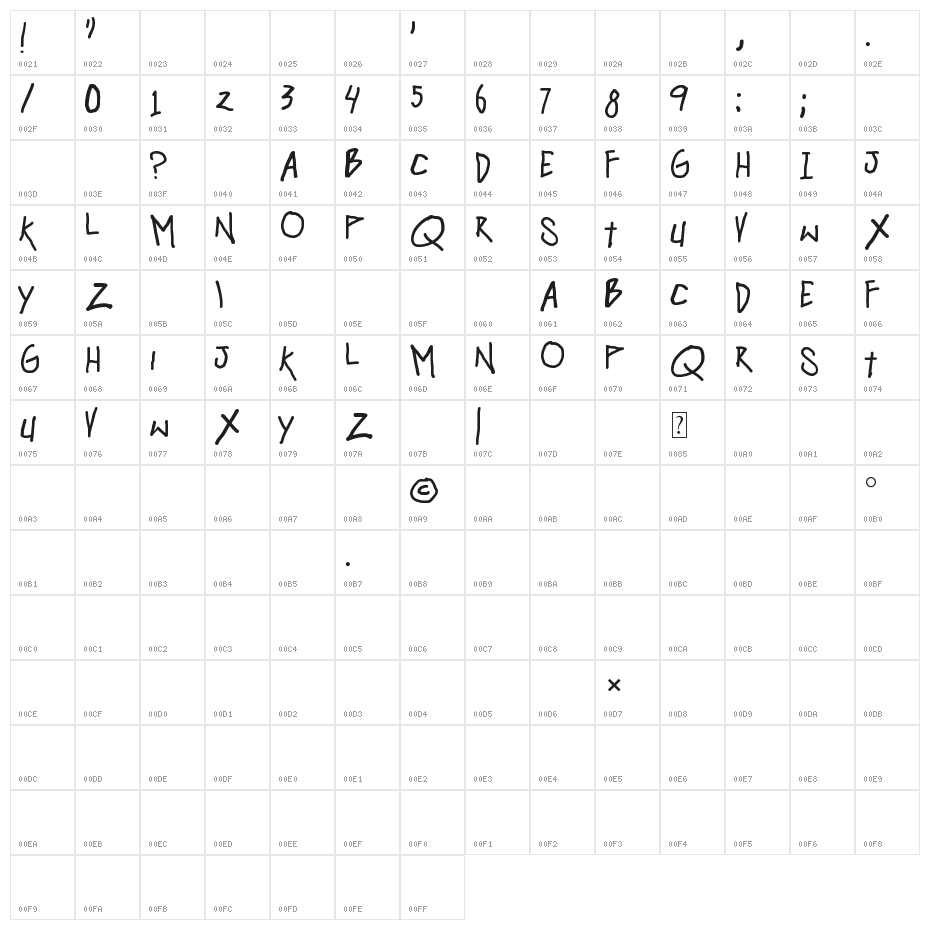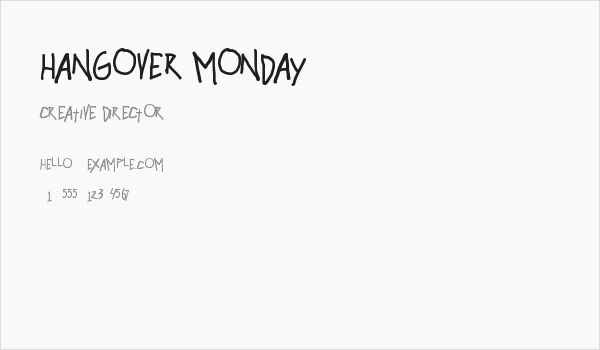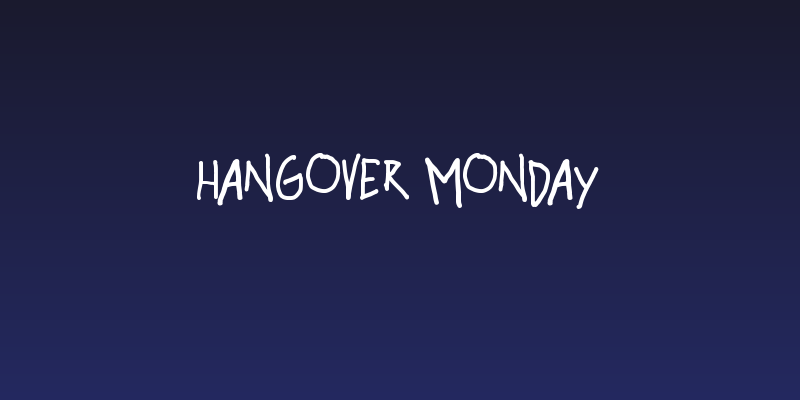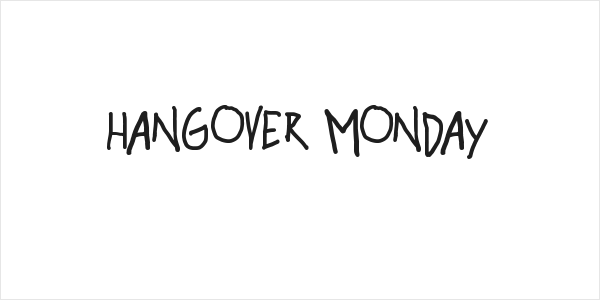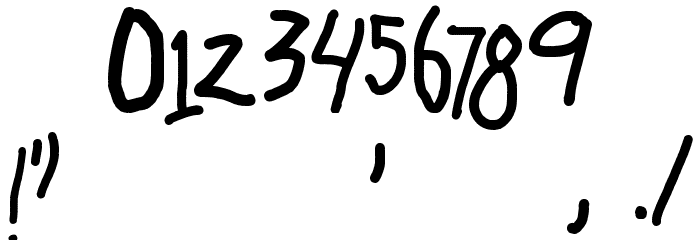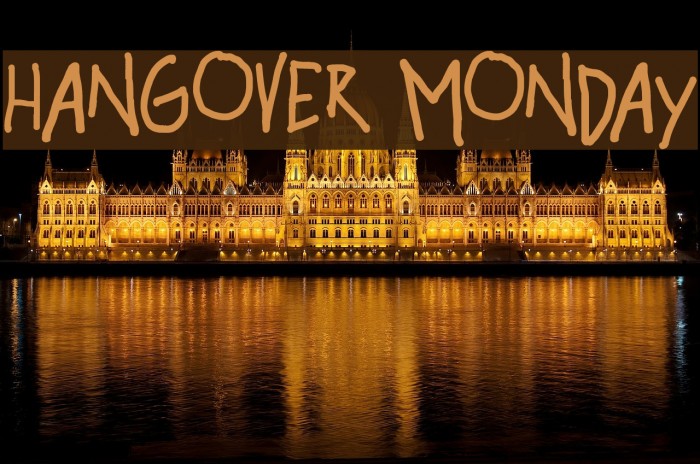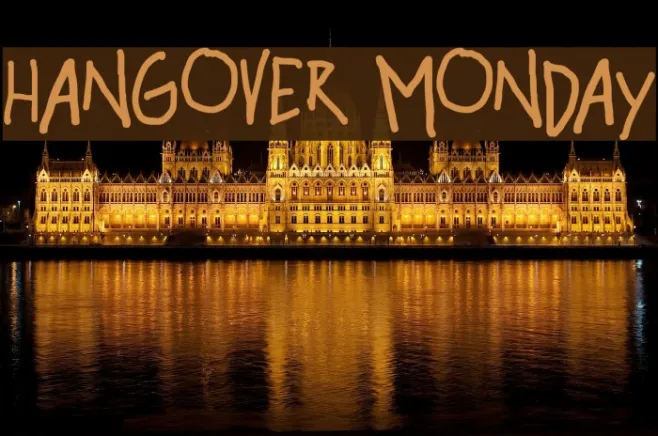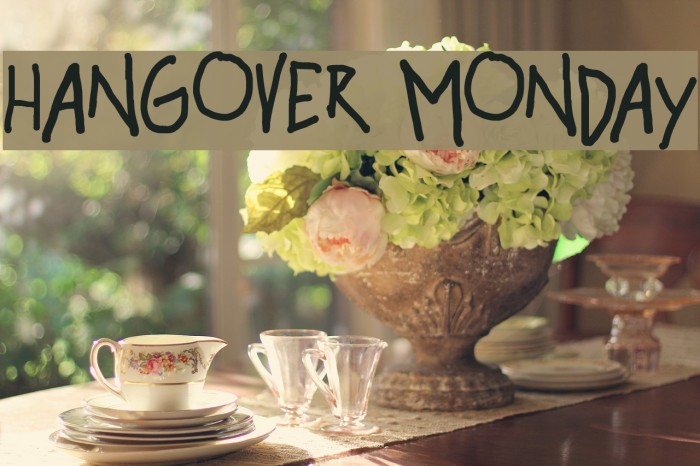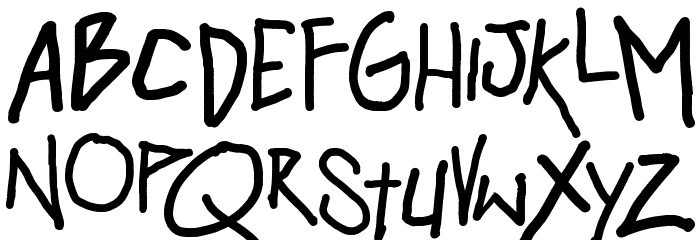
hangover monday Font
This font features a playful and casual handwritten style, characterized by its irregular and slightly wobbly strokes. The letters have a spontaneous and organic feel, with varying thickness that adds a dynamic and lively appearance. The uppercase and lowercase letters maintain a consistent style, with rounded edges and a slightly tilted orientation, giving it a relaxed and informal vibe. The numbers and special characters follow the same aesthetic, ensuring a cohesive look across all elements. This font is ideal for projects that require a personal touch, such as greeting cards, invitations, or creative branding.